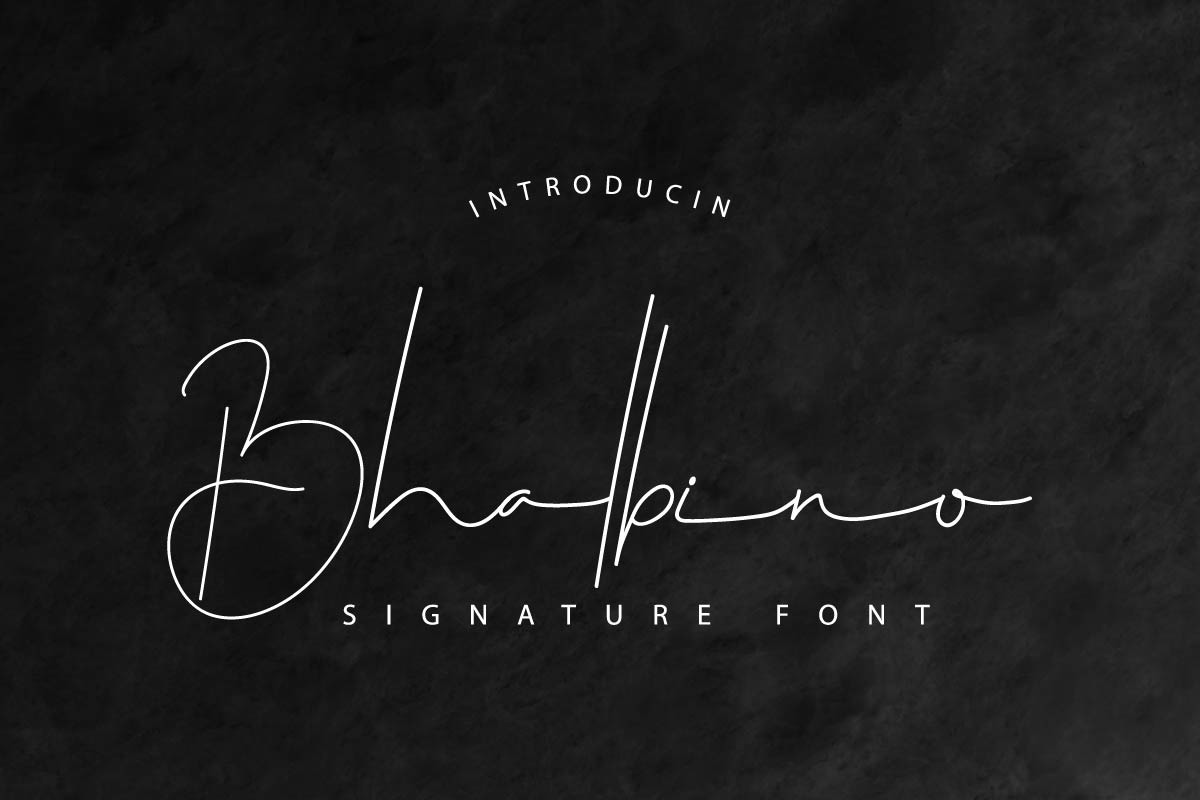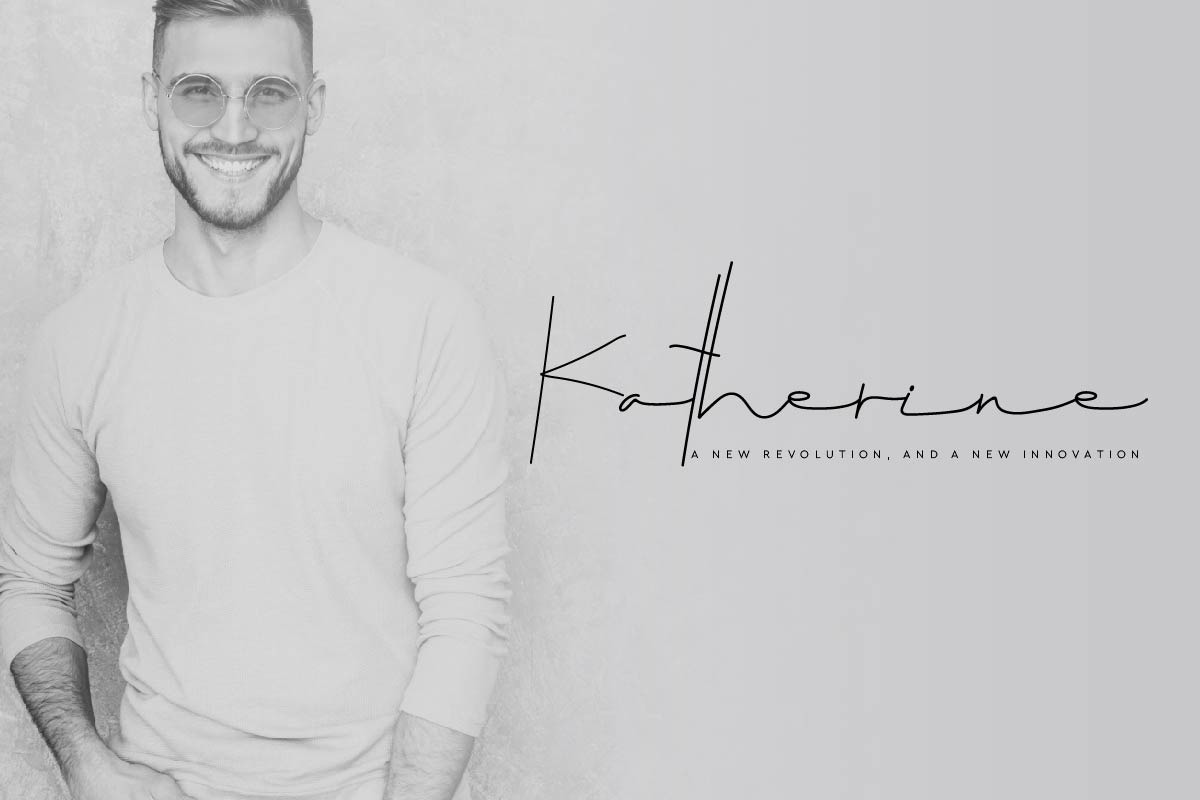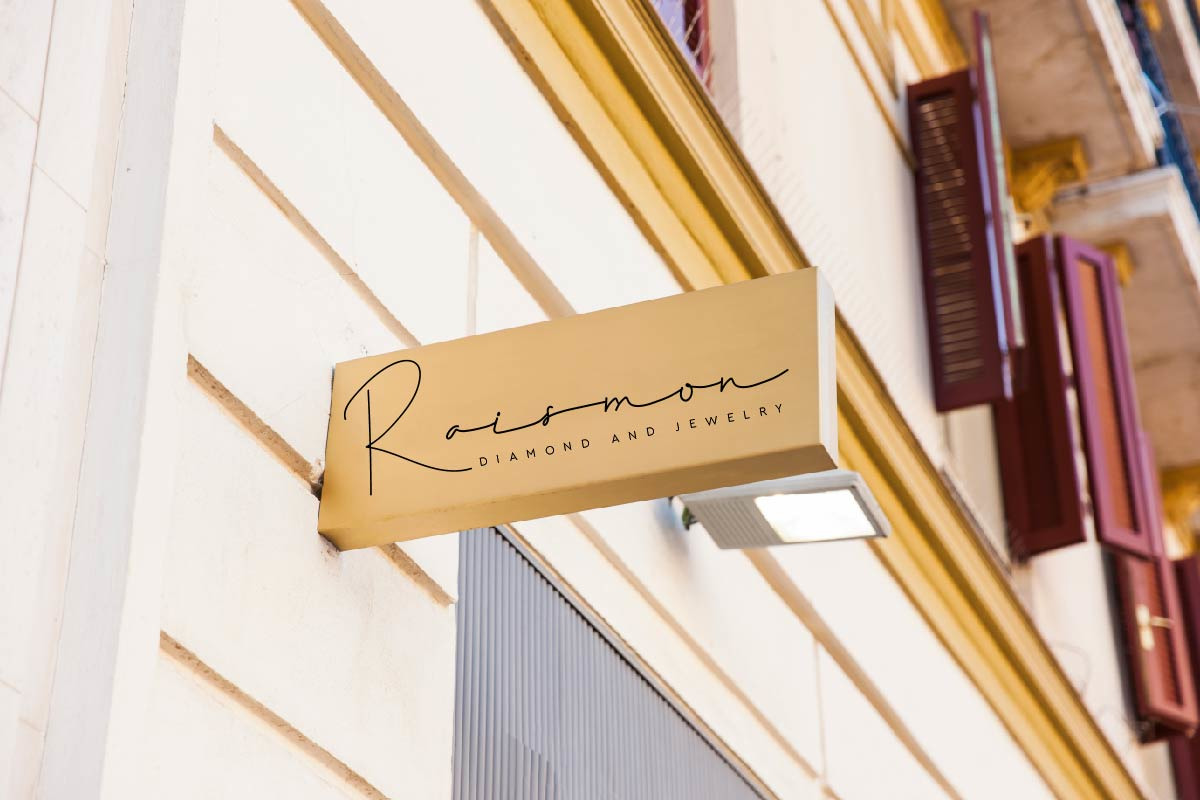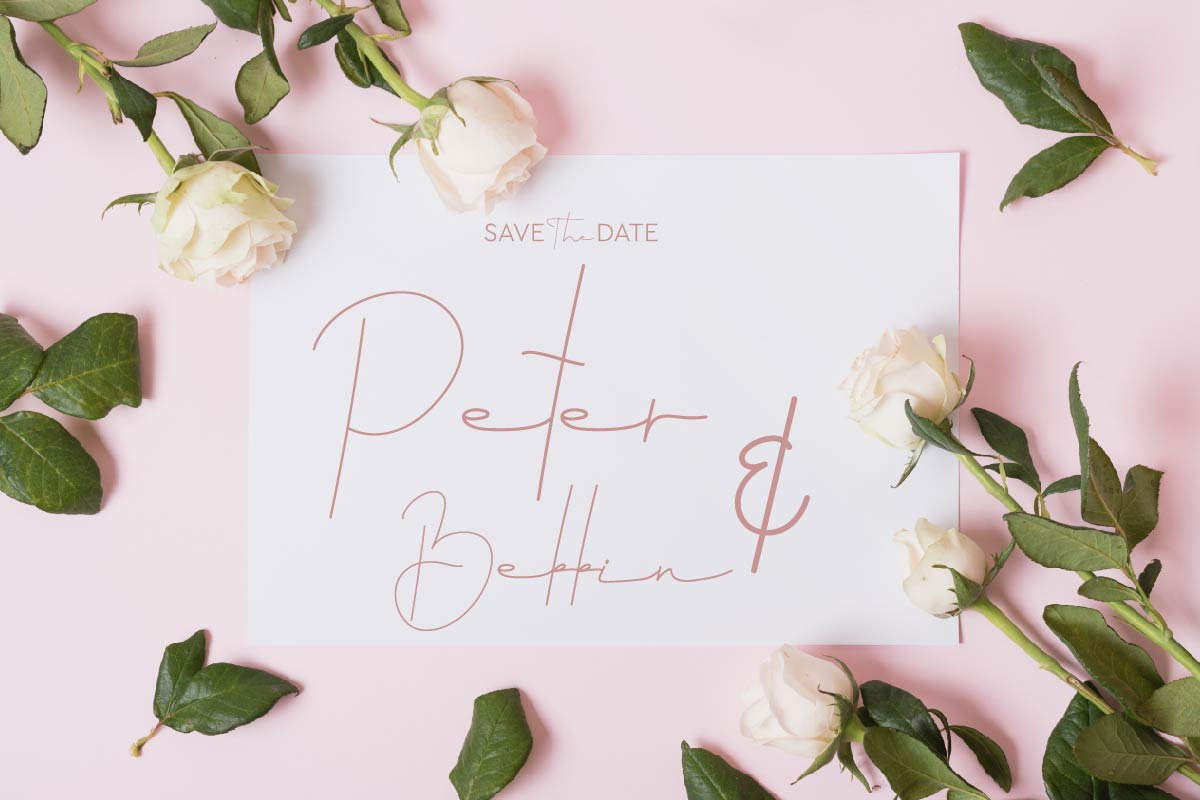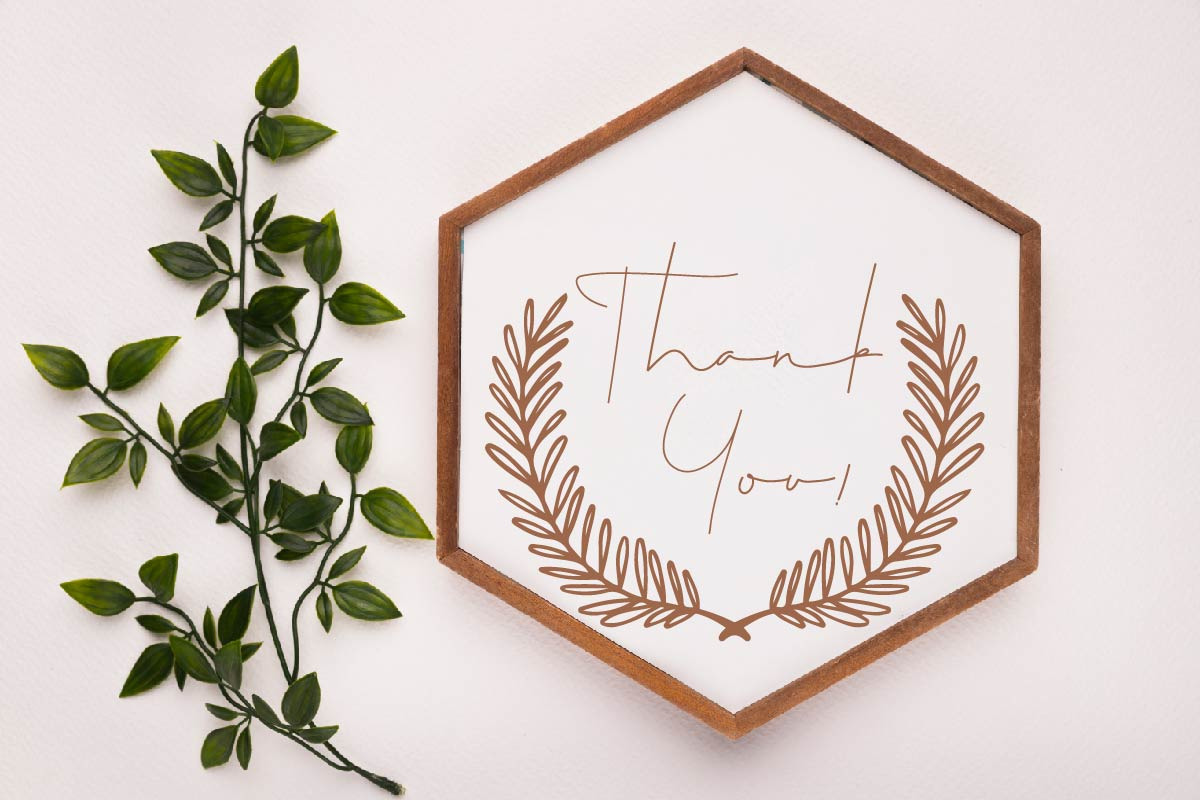
Bhalbino Signature Font
Edric Studio in 2020, Presenting to you : Bhalbino Signature Font
This is a script font with Handwriting Signature style. This typeface was handcrafted by two typeface artists : Saila and Suci. Made in Bandung and Garut – West Java, Indonesia.
Bhalbino Signature Font has an exclusive style, so you can use it on any cases and explore further more. If you get an extended, this font will suit many projects categories and you can create as many as possible : Logo type, flyer, stationery, business card, signage, flyer, brochure etc. It will be great for names, signature logo, logotype, professionals like : designer, artist, musician, fashion, blogger, chef, architect, florist etc. There’s no borderies of your creativity using this font.